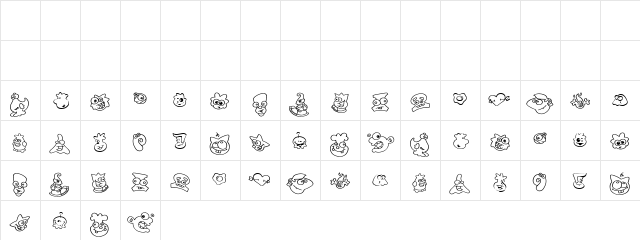
ZingDing Regular
Design Context for ZingDing Typeface
ZingDing is a composed and adaptable typeface that performs quietly and consistently across a wide range of design contexts.